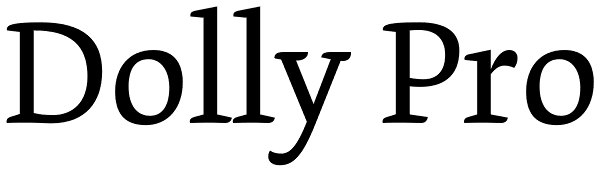
Dolly Pro
Dolly Pro is a book typeface with a flourishing flavour. She’s suitable for classical book type setting as well as for more contemporary magazine designs. The family consists of four fonts: Dolly Regular is neutral and useful for long texts. Dolly...